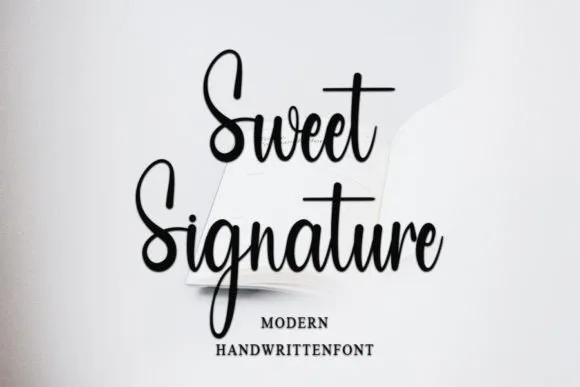
Sweet Signature Font
About Sweet Signature Font
“Sweet Signature” is a neat and beautiful handwritten font that exudes elegance and charm, making it an excellent choice for your favorite design projects. With its distinct and timeless style, this font can elevate various creative endeavors and help you create truly spectacular designs.
The appeal of “Sweet Signature” lies in its ability to convey a sense of sophistication and refinement. Its handwritten style is characterized by an elegant touch that adds a touch of class to your text, making it perfect for a wide range of design applications.
One of the standout features of “Sweet Signature” is its versatility. Whether you’re working on logos, branding, invitations, stationery, or any other design project, this font can seamlessly adapt to your creative vision, enhancing the overall aesthetic.
When you incorporate “Sweet Signature” into your projects, you can expect your creations to radiate a sense of style and beauty. This font has the power to make your designs stand out and leave a lasting impression on your audience.
In summary, “Sweet Signature” is more than just a font; it’s a design asset that can enhance your creative projects with its elegant and distinctive handwritten style. Its versatility and timeless appeal make it a valuable addition to your design toolkit. You can confidently use “Sweet Signature” to elevate any project, as it has the potential to bring a sense of sophistication and beauty to your designs!